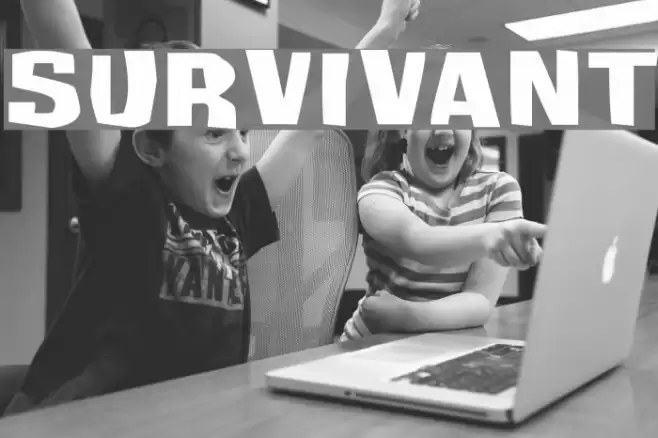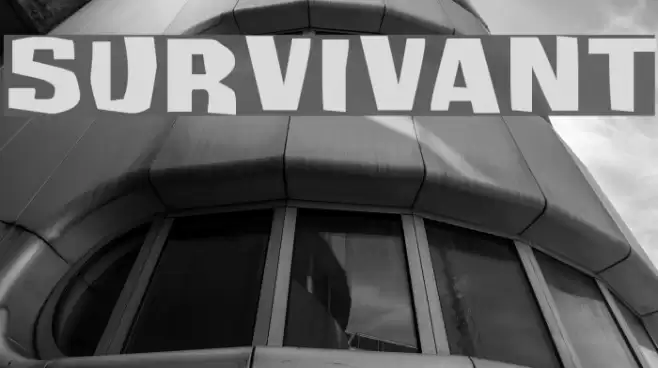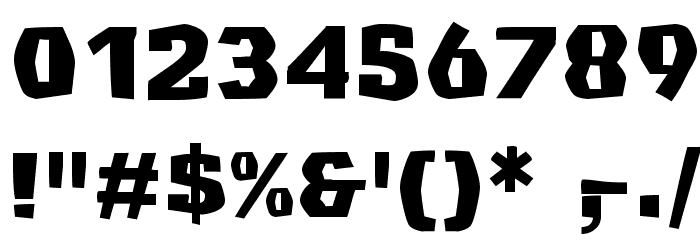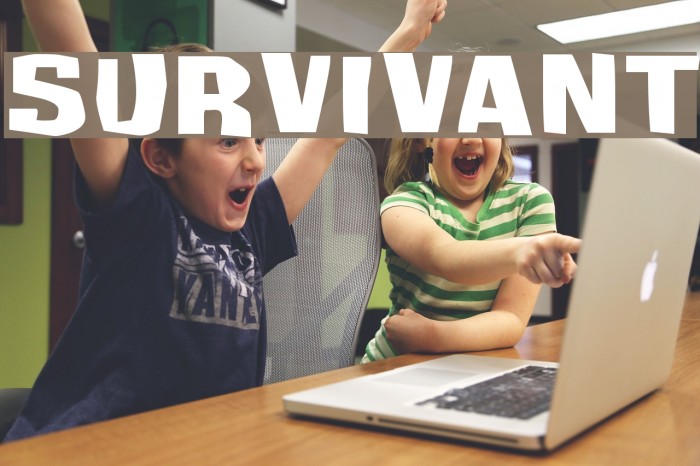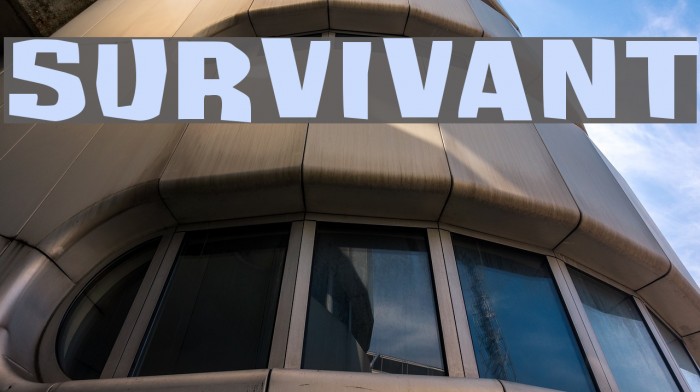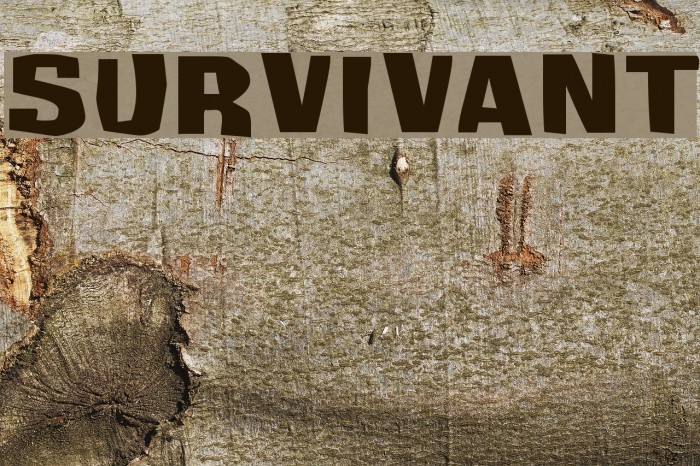
Survivant Font
Survivant Description
This font features a bold and rugged design, characterized by its uneven and jagged edges that give it a distressed, hand-crafted appearance. The uppercase and lowercase letters maintain a consistent thickness, contributing to its bold presence. The numbers and special characters follow the same stylistic approach, ensuring uniformity across all glyphs. This font's unique style makes it stand out, ideal for projects that require a strong and impactful visual statement. Its design suggests a sense of resilience and strength, making it suitable for themes related to survival, adventure, or bold branding.
A bold, rugged font with uneven, jagged edges for a distressed look from Capitals fonts.
- Proposed Projects: Ideal for adventure-themed posters, survival gear branding, or bold graphic designs.